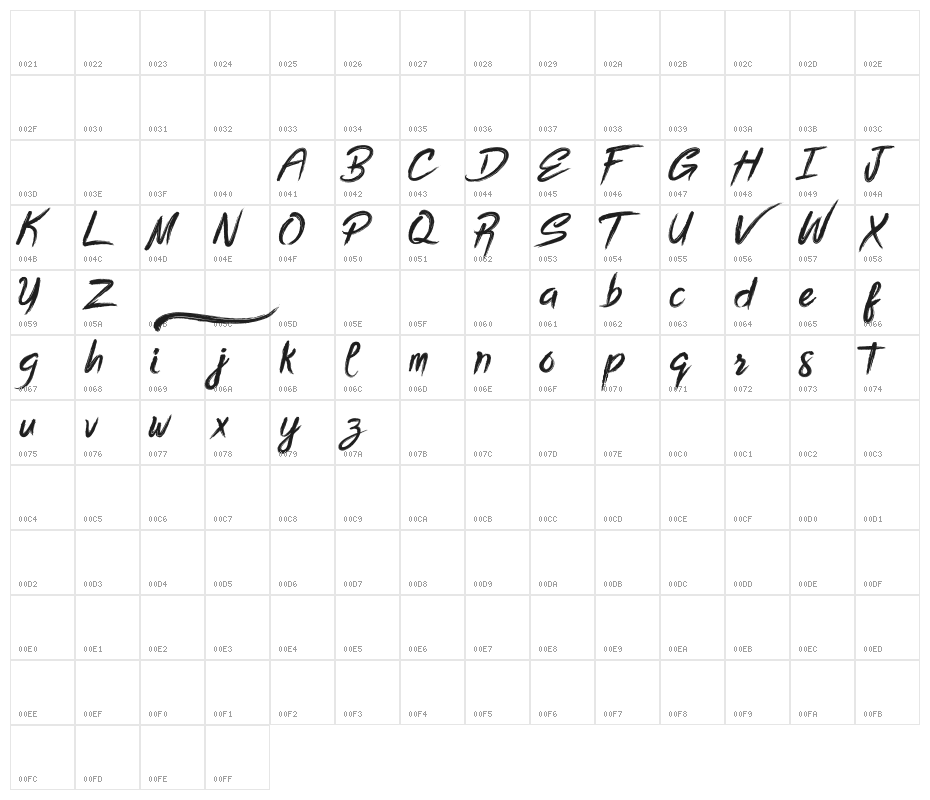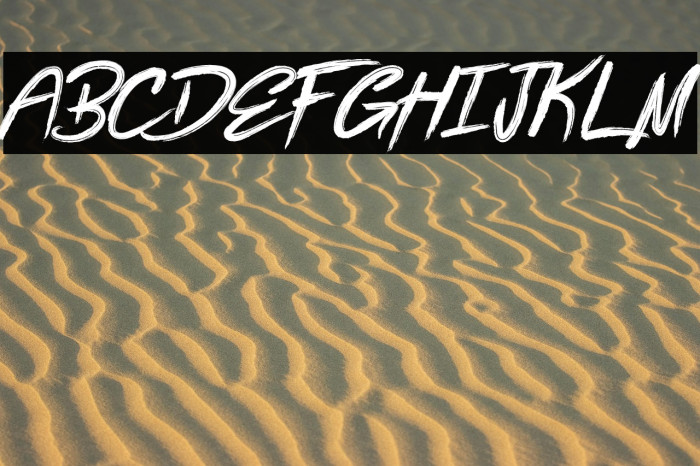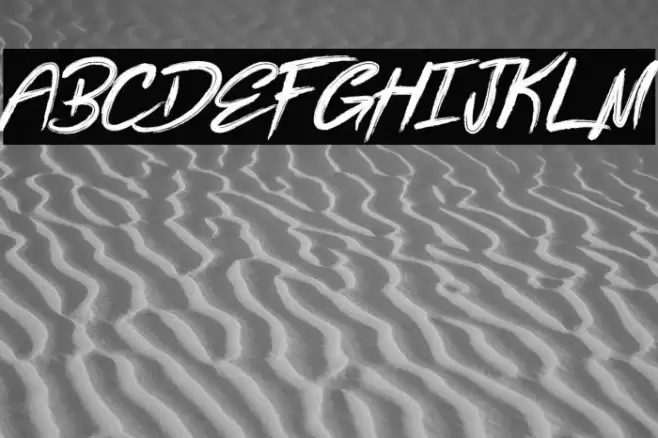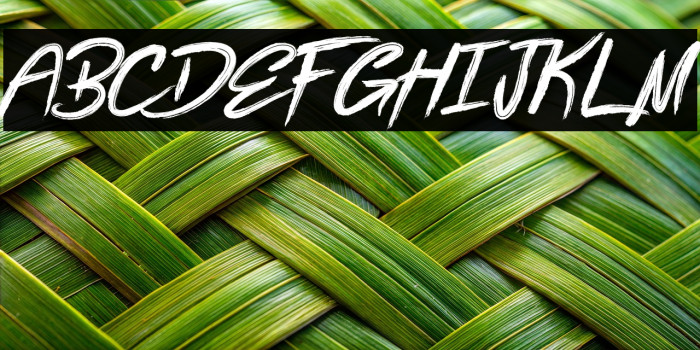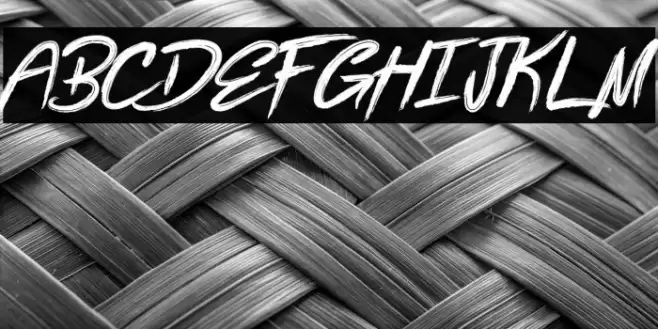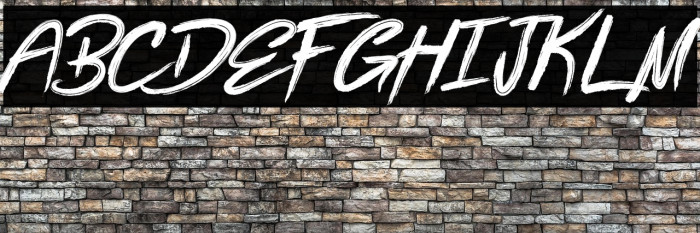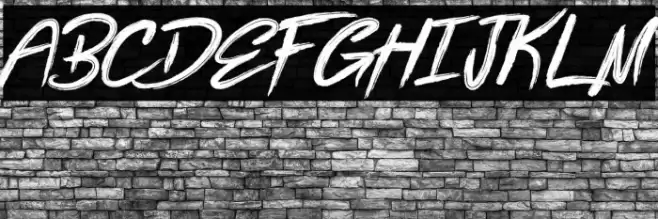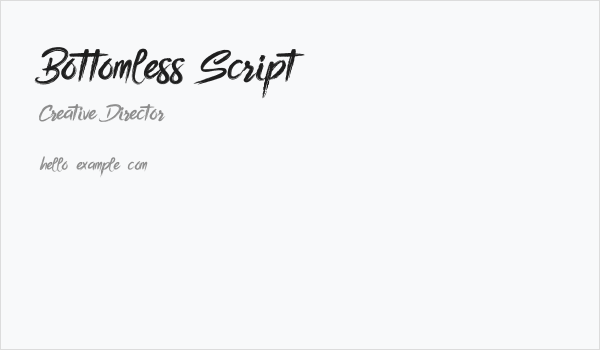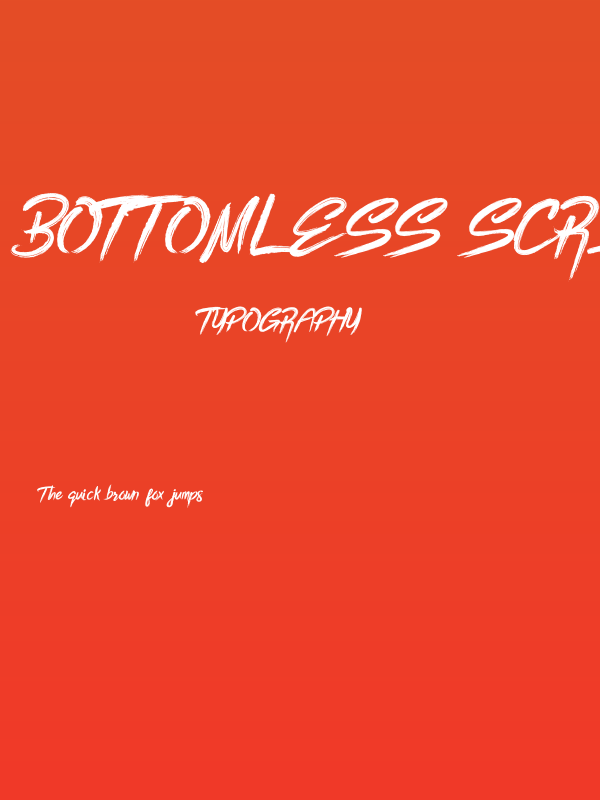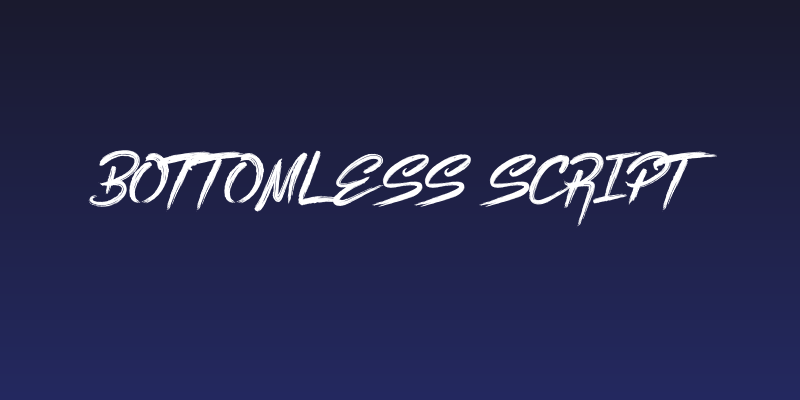
Bottomless Script Font
Bottomless Script Description
This font exudes a dynamic and energetic vibe with its bold, brush-like strokes. The letters are crafted with a sense of motion, giving them a lively and expressive appearance. The uppercase and lowercase characters maintain a consistent style, characterized by their sweeping curves and sharp angles. The font's texture resembles hand-painted lettering, adding a raw and artistic touch. The overall design is both edgy and sophisticated, making it suitable for projects that require a strong visual impact. Its unique style captures attention and conveys a sense of creativity and freedom.
| Proposed Projects | Ideal for branding, posters, album covers, and creative advertising campaigns. |